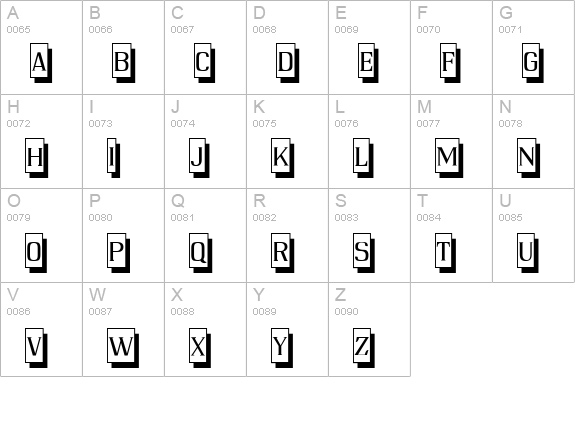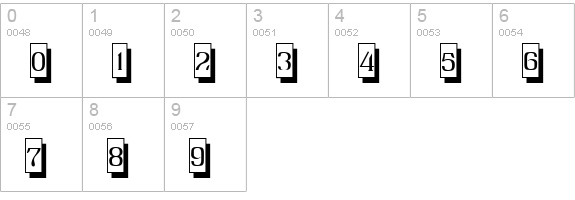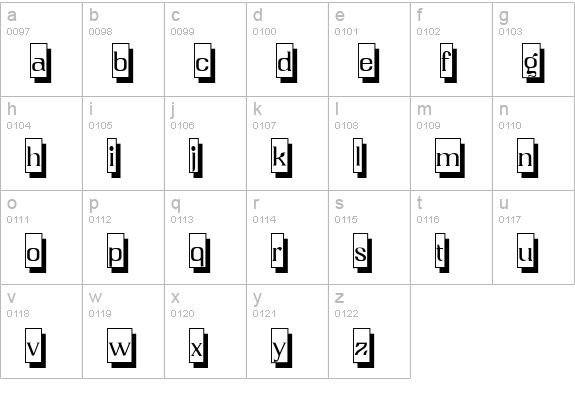
QwatickPlacard Font Details
QwatickPlacard is a stunning font that effortlessly combines elegance with a touch of modernity. With its sleek and sophisticated letterforms, this font is perfect for a wide range of design projects, from branding and logos to invitations and headlines. What sets QwatickPlacard apart is not only its aesthetic appeal, but also its accessibility. This font is available for free, making it an excellent choice for designers on a budget or those who simply appreciate quality without the price tag. With QwatickPlacard, you can add a touch of class and professionalism to your designs without compromising on creativity. Its clean lines and well-balanced proportions make it versatile and easy to work with, ensuring that your message is always clear and impactful. Whether you're designing a website, creating printed materials, or even crafting social media graphics, QwatickPlacard will never let you down. Its timeless beauty and legibility make it a reliable choice for any project. And the best part? QwatickPlacard is freely available to download at FontsMarket.com. This means that you can easily access this incredible font and start using it in your designs today. So why wait? Enhance your creative endeavors with QwatickPlacard and watch your designs come to life.